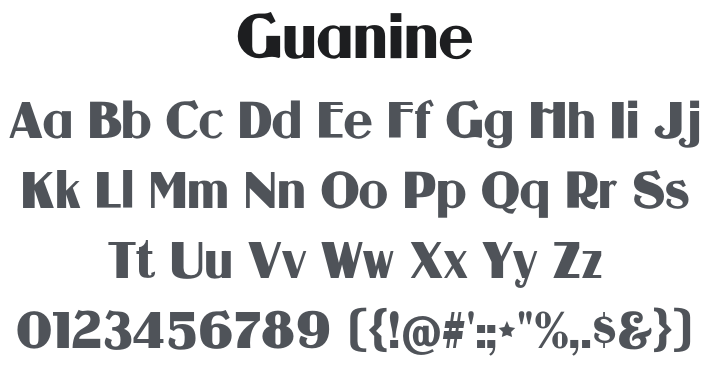
Guanine Font
About Guanine
Guanine is an old-fashioned display typeface inspired by lettering seen on a vintage bus — its bold, industrial Art Deco letterforms carry coarse, roughened edges that give each character an authentically antique character. The combination of geometric structure and deliberate crudeness creates a distinctive early 20th-century transit aesthetic. Perfect for heritage branding, vintage posters, retro signage, and period-themed editorial design.